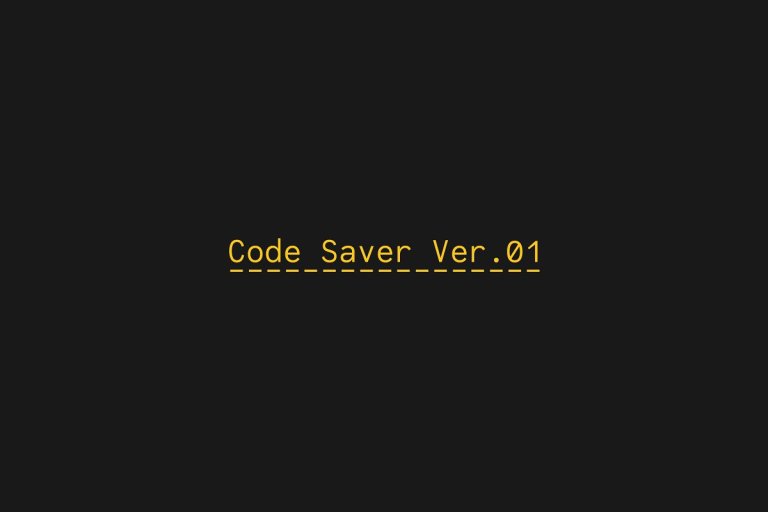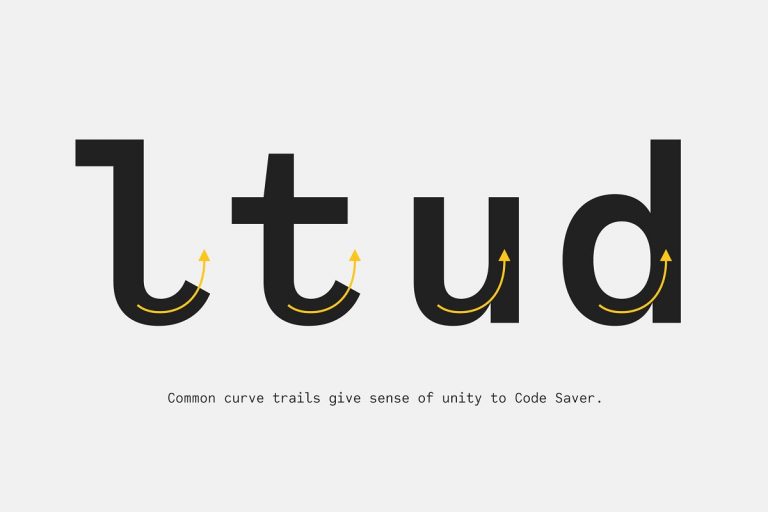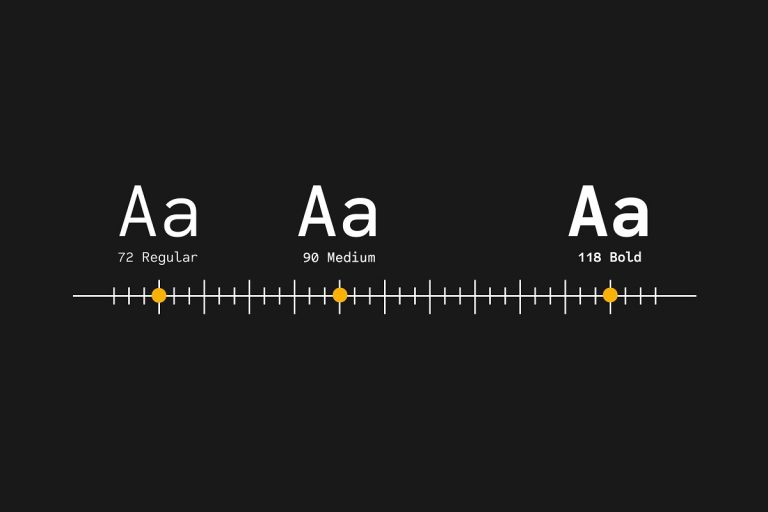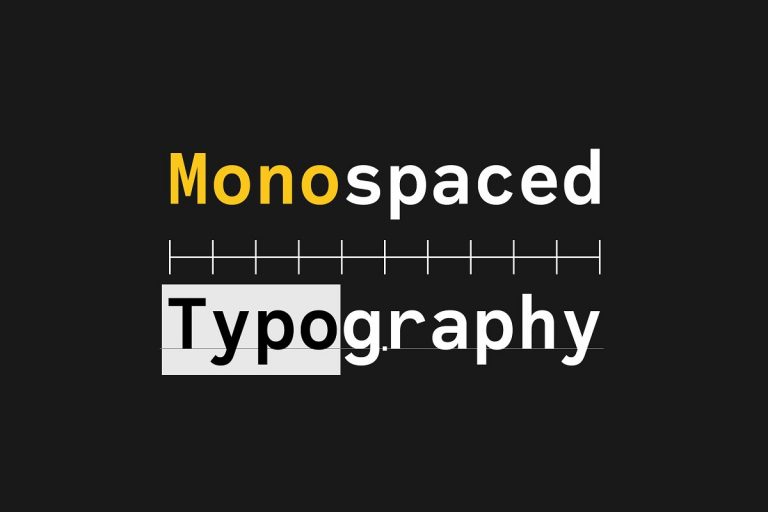
Code Saver Font Family – Free Demo
Introducing Code Saver Typefamily! Code Saver designed and shared by Dharma Type. Pairing the efficiency of a monospaced font with warmth and character, Code Saver is a handsome font family featuring both fixed-pitch and proportional sans versions. A tribute to the utilitarian beauty of terminals and typewriters, Code Saver excels in any setting. Code Saver is applicable for any type of graphic design—web, print, motion graphics, etc.—and perfect for t-shirts and other items like posters and logos.